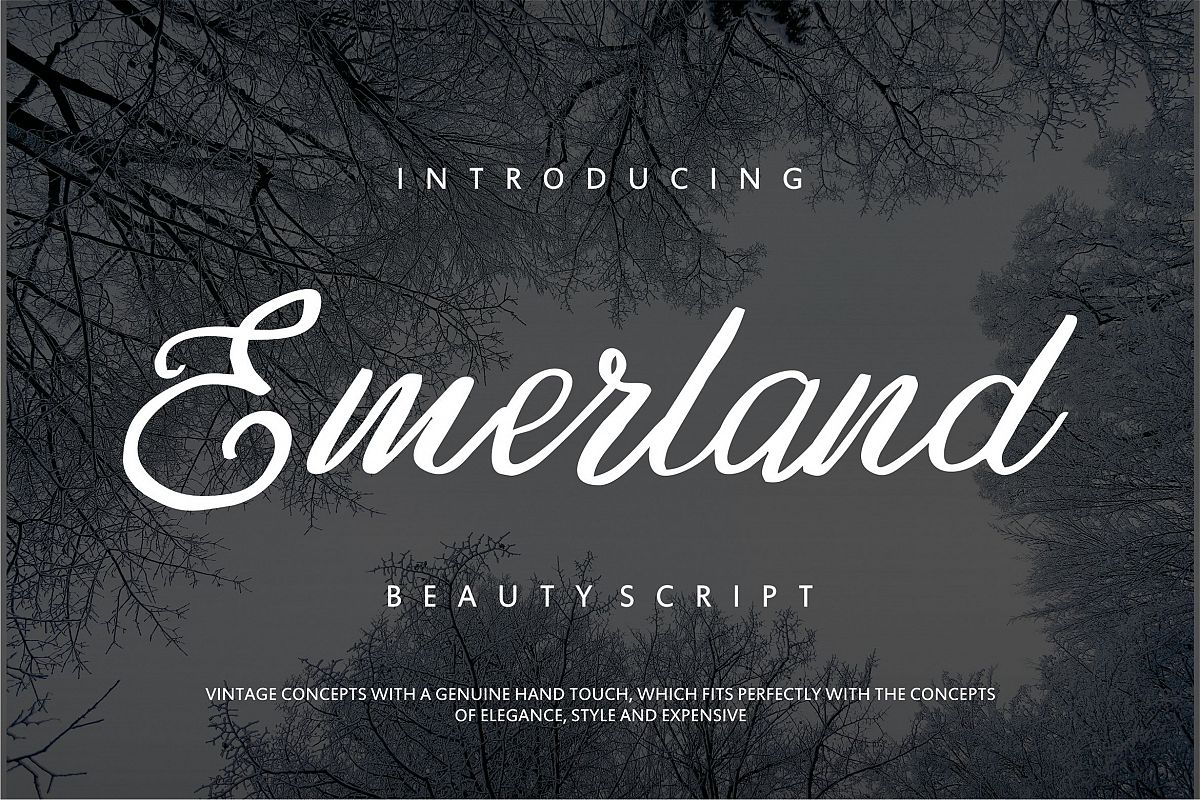
Emerland | Beauty Script Handwritten
Emerland | Beauty Script Handwritten with a calligraphy style, So beautiful on invitation like greeting cards, branding materials, business cards, quotes, posters, and more!
The alternative characters were divided into several features such as Stylistic Sets, Stylistic Alternates, Contextual Alternate, SWASH and Ligature. The Open Type features can be accessed by using Open Type savvy programs such as Adobe Illustrator, Adobe InDesign, Adobe Photoshop Corel Draw X version, And Microsoft Word. And this Font has given PUA unicode (specially coded fonts). so that all the alternate characters can easily be accessed in fullWhat’s Included :
• Hundred of glyphs
• Alternates and Ligatures
• PUA Encoded Characters - Fully accessible without additional design software.
• Fonts include Multilingual Support